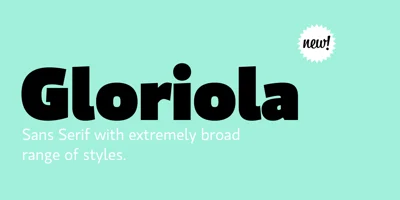
Gloriola Font is perfect for celebratory event branding, victorious achievement materials, glorious recognition ceremonies, triumphant sports announcements, magnificent award presentations, radiant success campaigns, brilliant achievement certificates, shining milestone celebrations, luminous victory graphics, and inspiring glory-themed communications.
What makes Gloriola Font exciting is its triumphant radiance and glorious magnificence that captures the essence of victory with brilliant splendor and magnificent celebration. This luminous typeface embodies the spirit of glorious achievement with its radiant character forms and triumph-inspired proportions that evoke golden trophies gleaming in spotlights, champions raising their arms in victorious celebration, and the kind of magnificent glory that transforms ordinary moments into legendary achievements. The font's glorious character creates an immediate sense of triumph and the kind of radiant magnificence that inspires greatness.
Gloriola Font family includes regular weight with gloriously crafted character designs featuring triumphant curves and magnificent proportions. The typeface maintains excellent readability while showcasing its distinctive glorious personality through radiantly designed letterforms that seem to shine with the same brilliant light that illuminates moments of ultimate victory and achievement.
Victory celebration professionals consistently choose Gloriola Font for projects requiring authentic triumphant appeal and glorious credibility. This remarkable typeface brings the power of magnificent victory to brand communications, combining radiant aesthetics with triumphant energy to create unforgettable glory experiences. The gloriously designed characters ensure brilliant positioning across all applications, making it essential for award ceremonies, achievement recognition, and any organization seeking to communicate the transformative power of victory and the magnificent radiance that comes from celebrating glorious achievements through Gloriola Font.